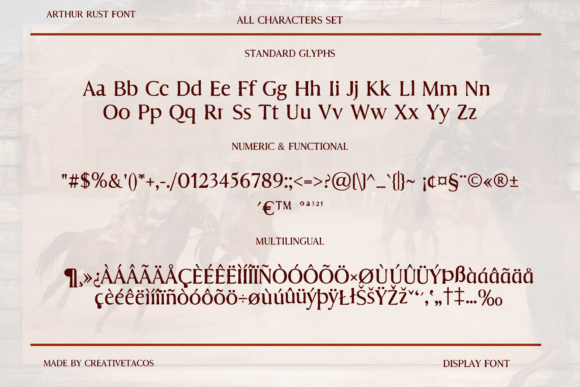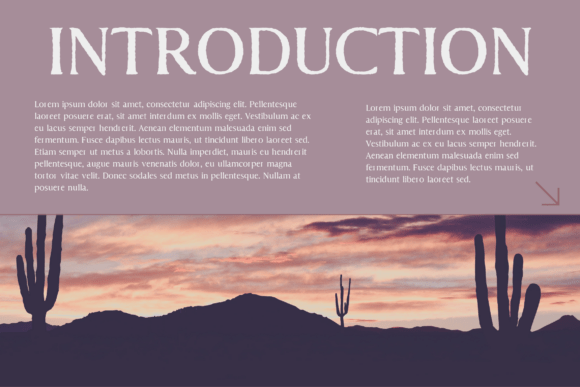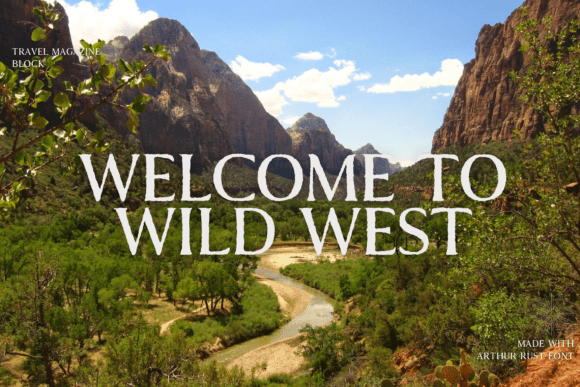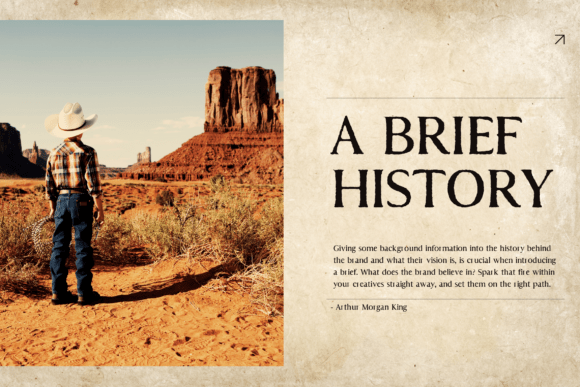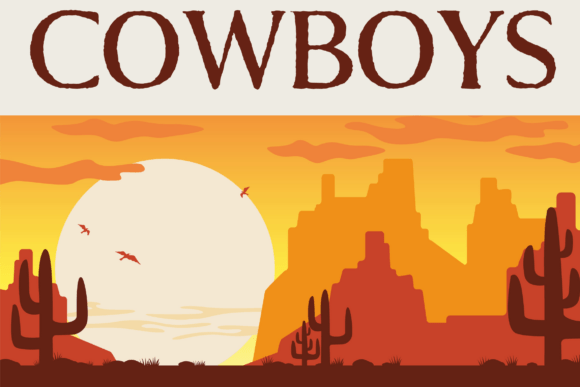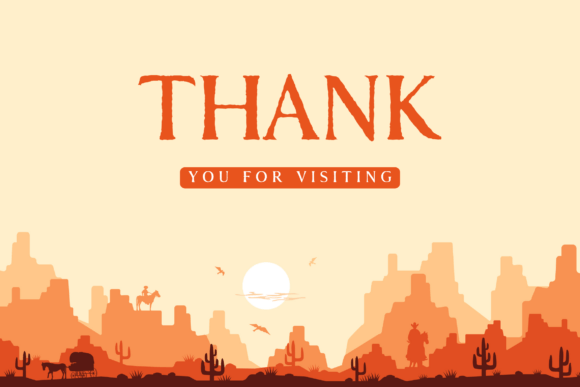
Get Ready to Saddle Up with the Arthur Rust Font
Do you remember the thrill of discovering a new font that perfectly captures the essence of your creative vision? For many designers, that moment is a rush of excitement and a spark of inspiration. It’s the moment when the words flow effortlessly, and the design starts to come alive. For those who crave that Wild West charm, we’re thrilled to introduce the Arthur Rust Font – a display serif font that embodies the spirit of the frontier.
This versatile font is more than just a tool – it’s a key to unlocking the stories of the past, reimagined for today’s creative pioneers. With its sweeping serifs and bold letterforms, the Arthur Rust Font brings an authentic Western vibe to every project, making it a valuable addition to any designer’s toolkit.
Arthur Rust Font Key Features
- Font Family: Arthur Rust Font is a serif font family.
- Unique Characteristics: Features a unique blend of traditional and modern design elements, with a focus on readability and legibility.
Designer Review: Arthur Rust Font
I recently had the chance to work with the Arthur Rust font, and here are my honest thoughts on this font family.
First off, the Arthur Rust font is incredibly versatile. It comes in 4 different styles (Light, Regular, Medium, and Bold) which makes it perfect for a wide range of projects. I particularly love how the font’s texture and imperfections give it a unique, hand-crafted feel that’s perfect for designs that need a bit of character.
- The font is well-suited for body text, as it’s clear and easy to read.
- The various weights allow for great flexibility in design.
- The font’s texture adds a nice touch to any design.
While I love the Arthur Rust font, there are a few things to keep in mind. The font’s imperfections can sometimes make it difficult to read, especially in smaller font sizes. Additionally, the font’s texture can be overwhelming if not used tastefully.
- The font can be difficult to read in small font sizes.
- The texture can be overwhelming if not used carefully.
Overall, I think the Arthur Rust font is a great choice for designers who want a unique, hand-crafted feel in their designs. While it may have a few limitations, the font’s versatility and character make it well worth considering for a wide range of projects.
Tips for Getting the Most Out of the Arthur Rust Font
Here are some tips for getting the most out of the Arthur Rust Font:
- Use the font in conjunction with other vintage-inspired elements to create a cohesive design.
- Experiment with different font sizes and styles to add visual interest to your design.
- Use the font to add a touch of elegance and sophistication to your design.
The Arthur Rust Font is well-suited for a variety of use cases, including: